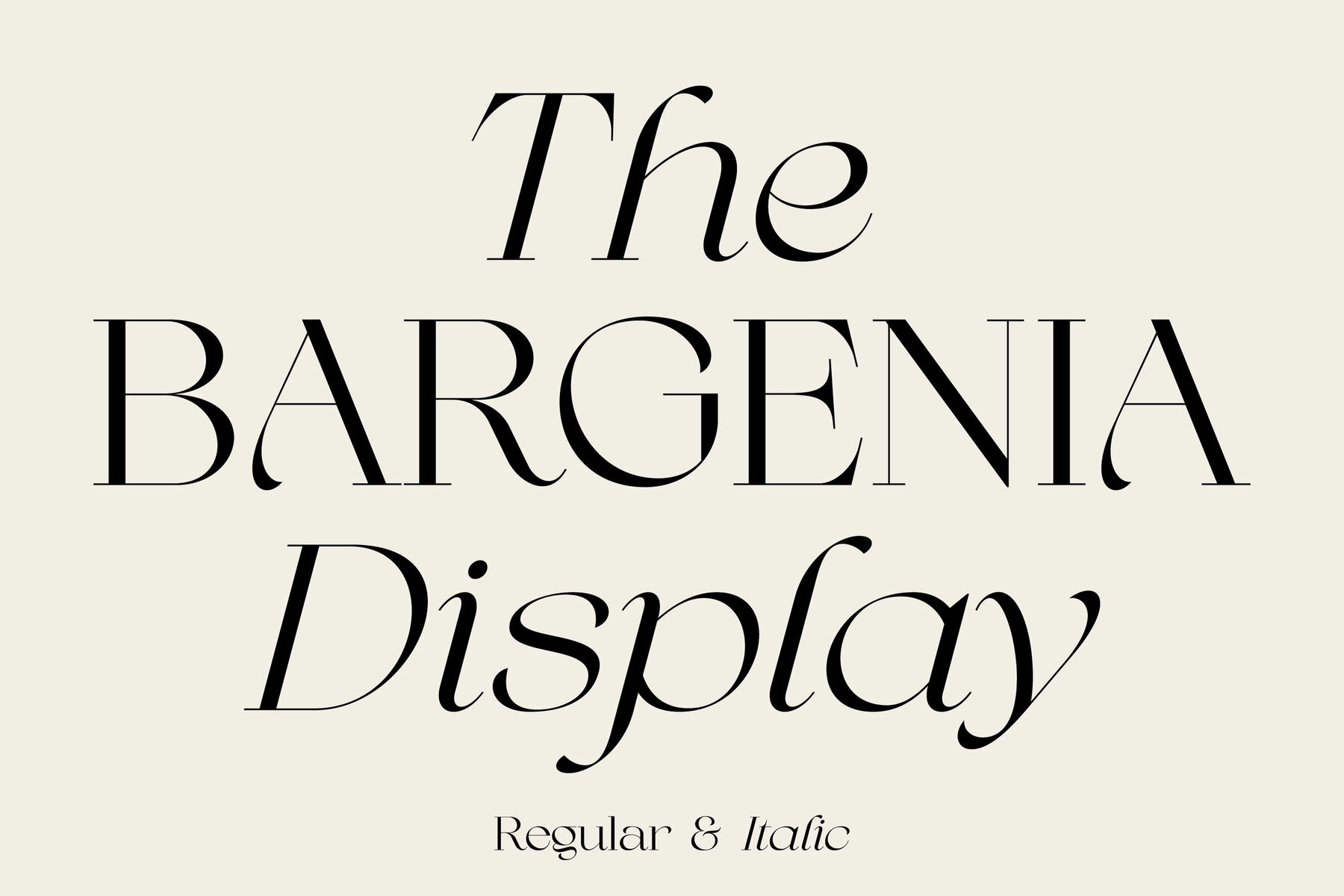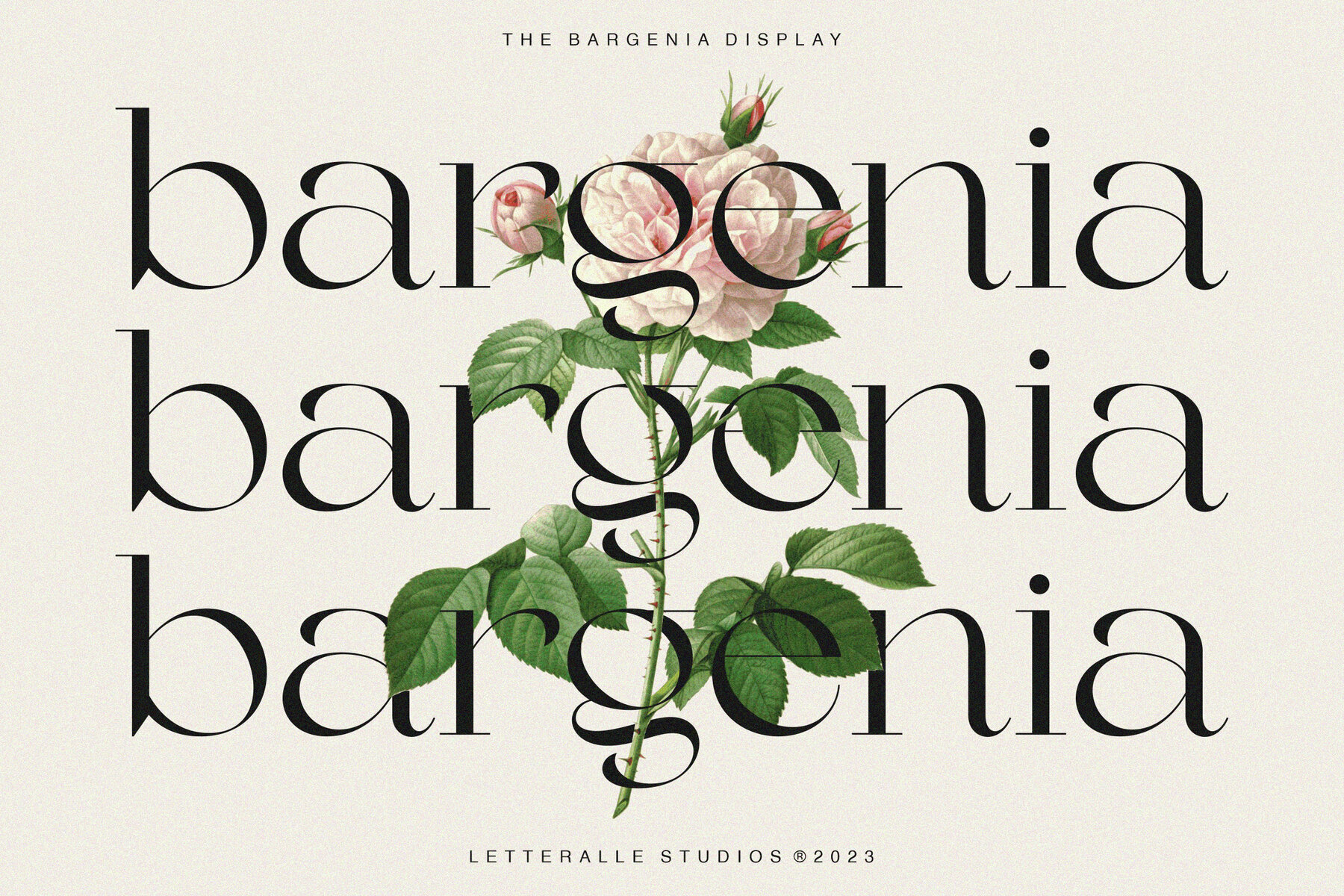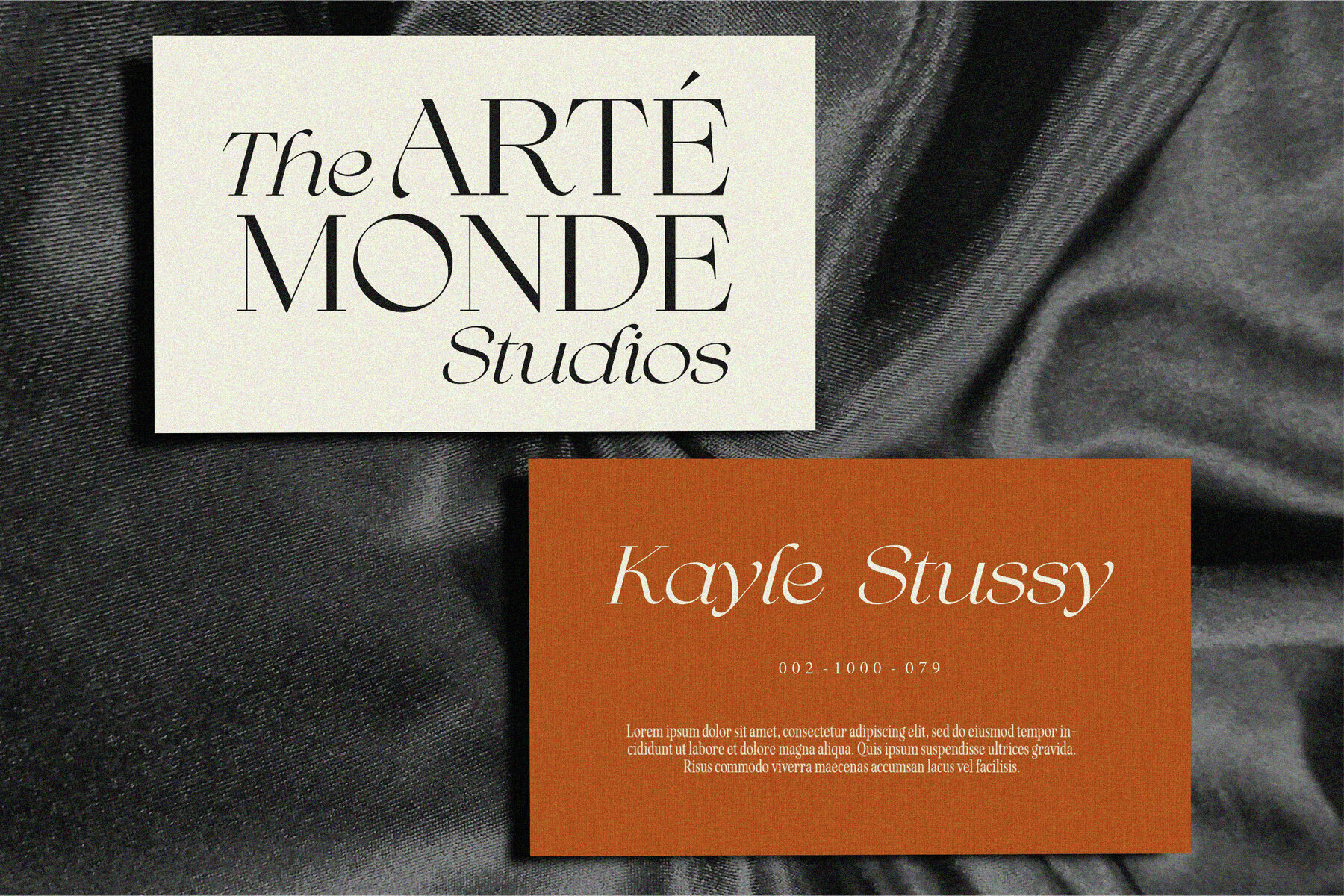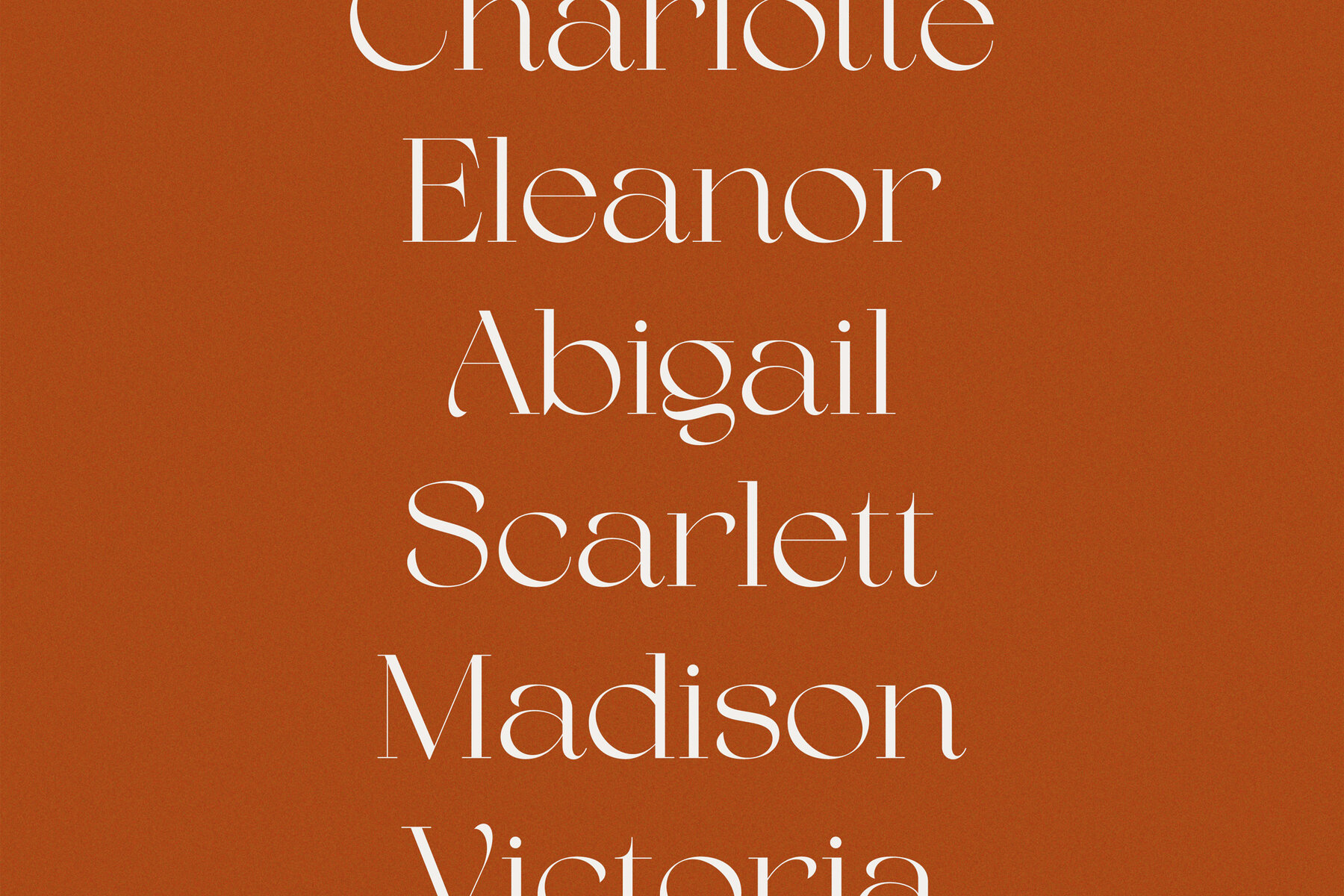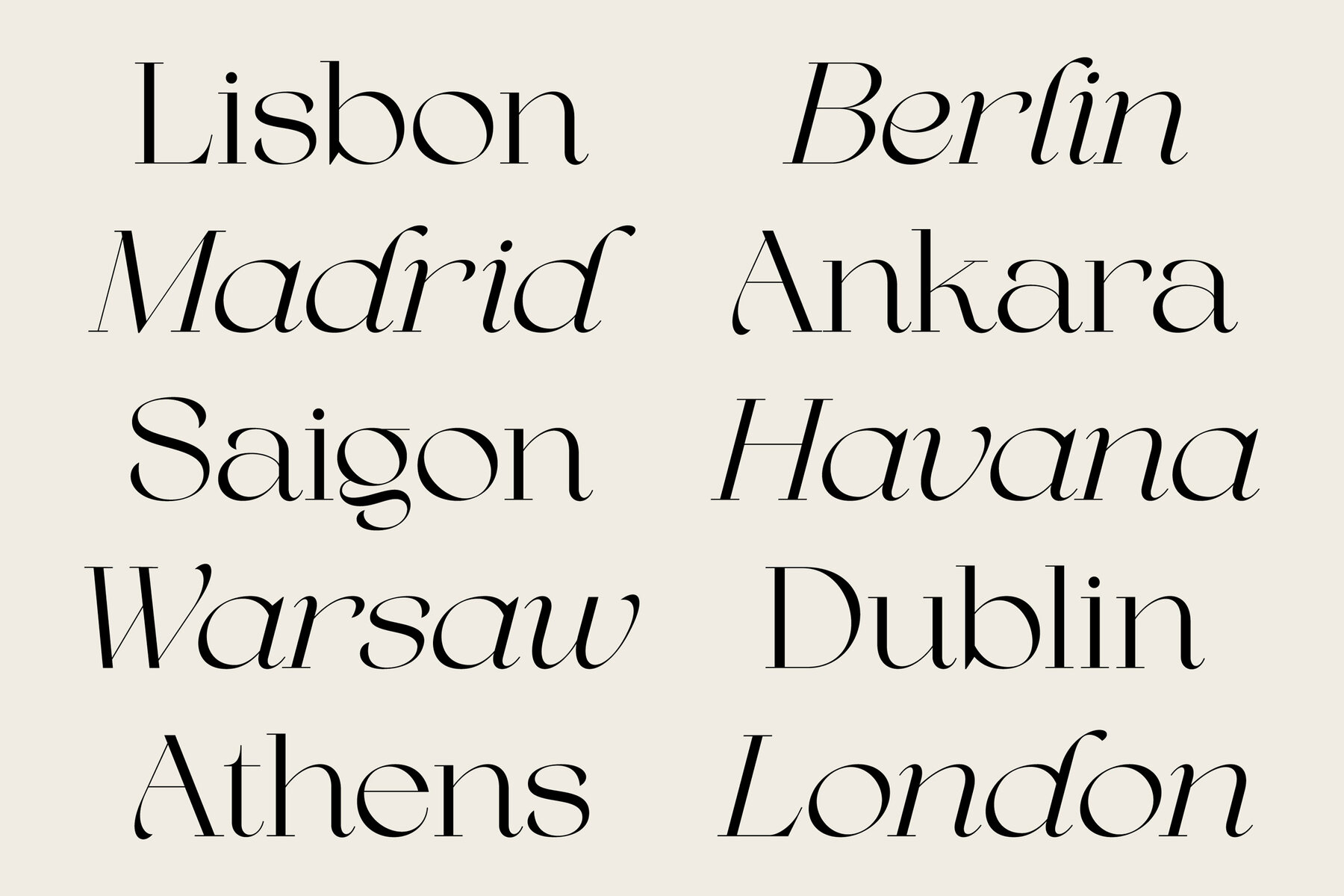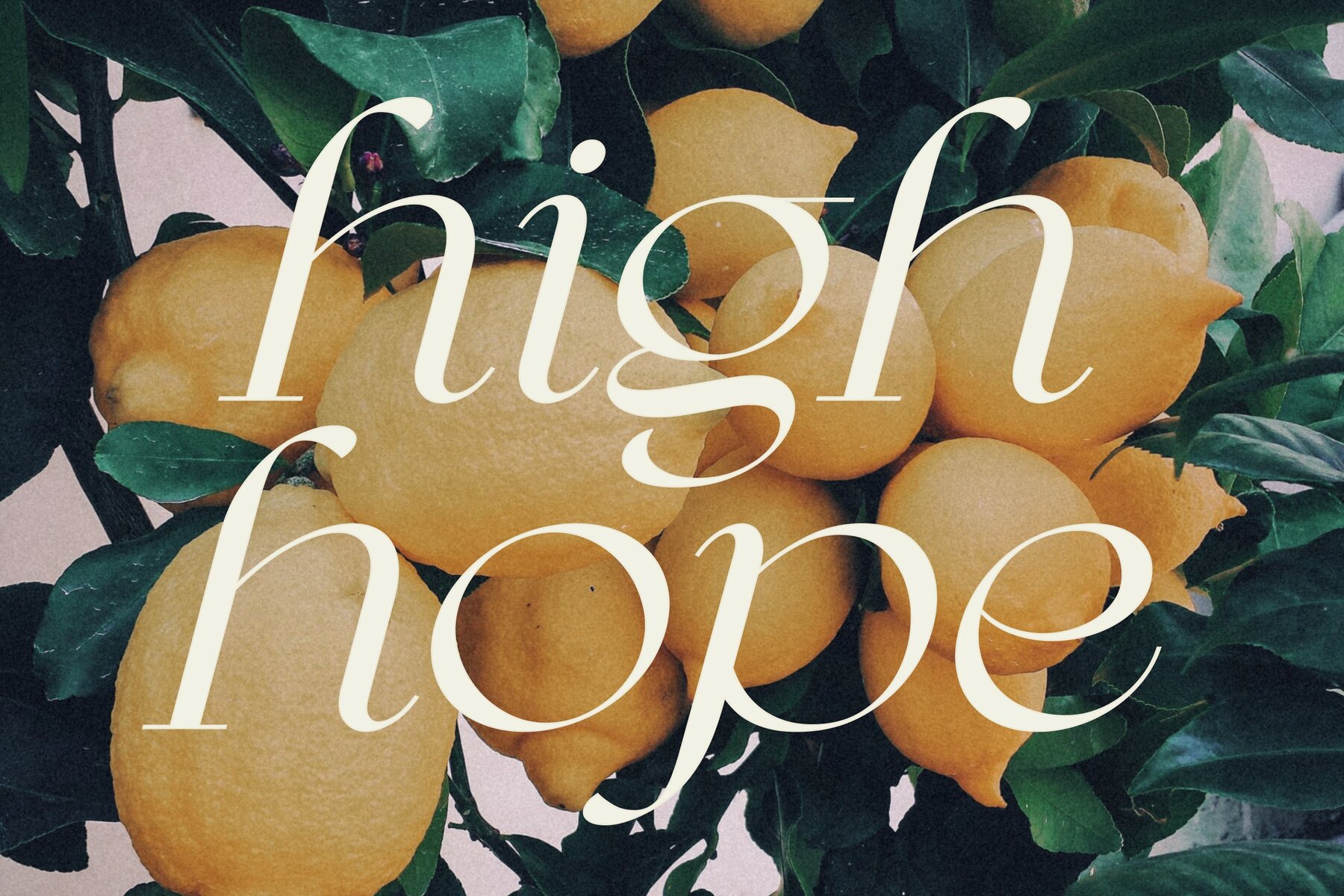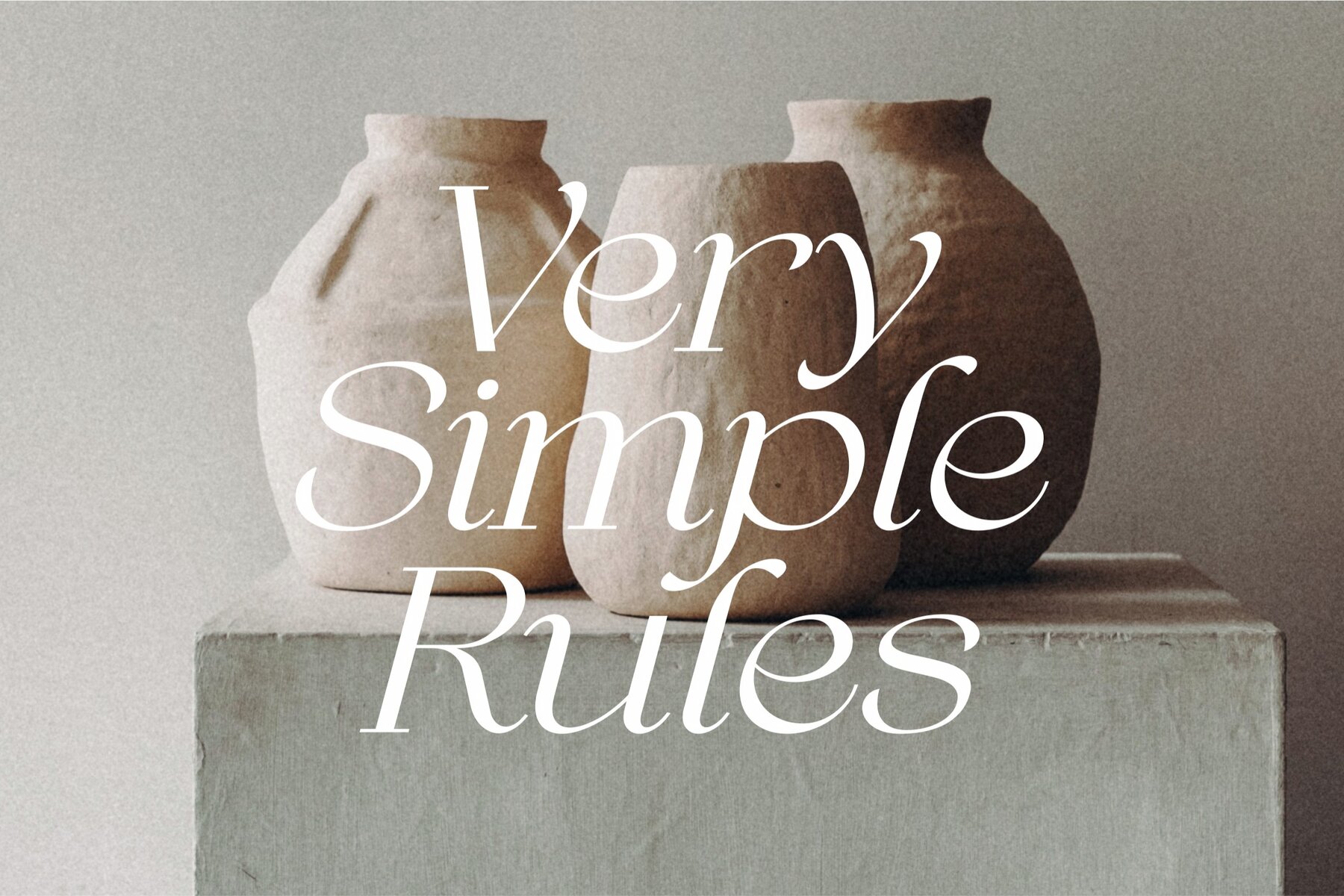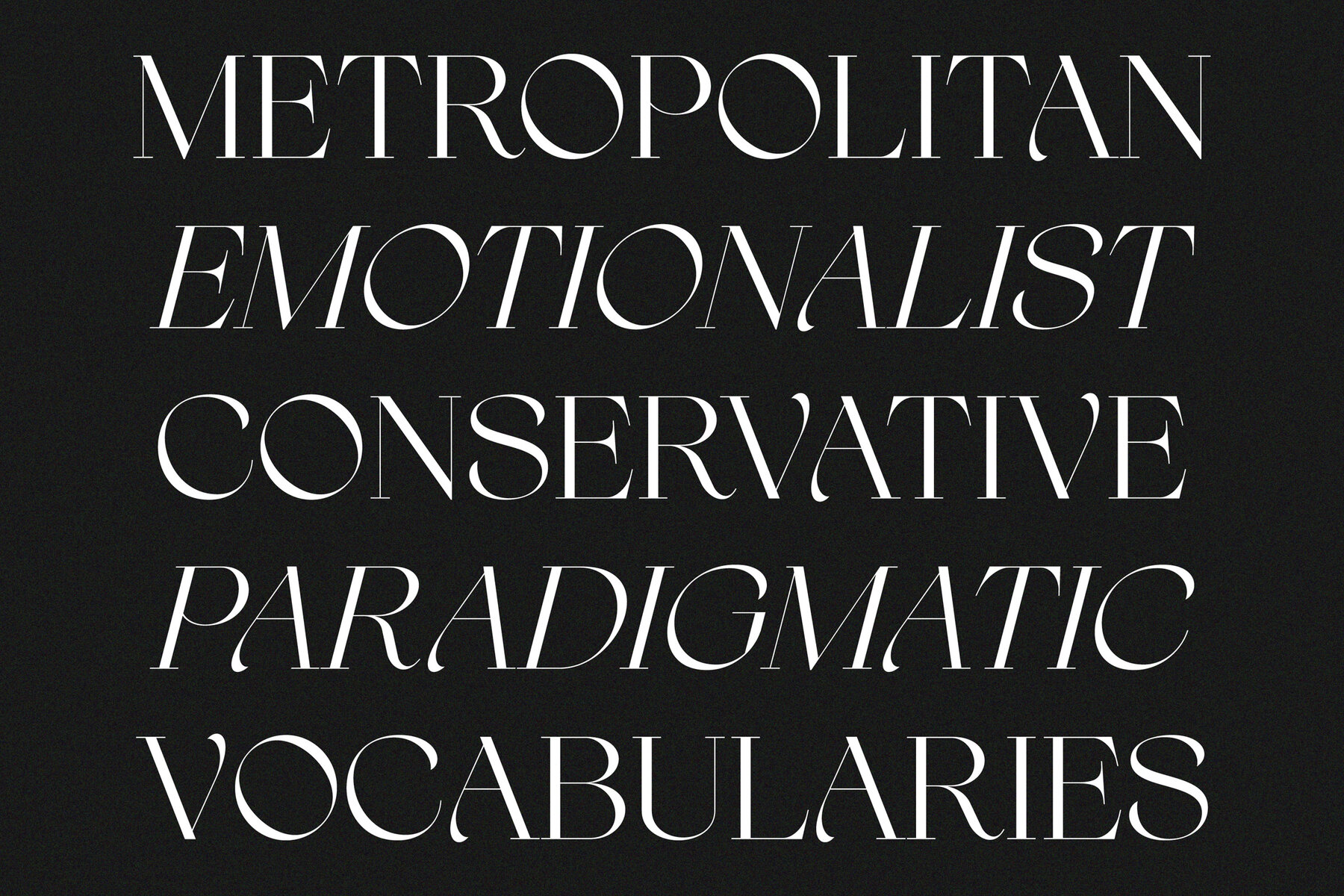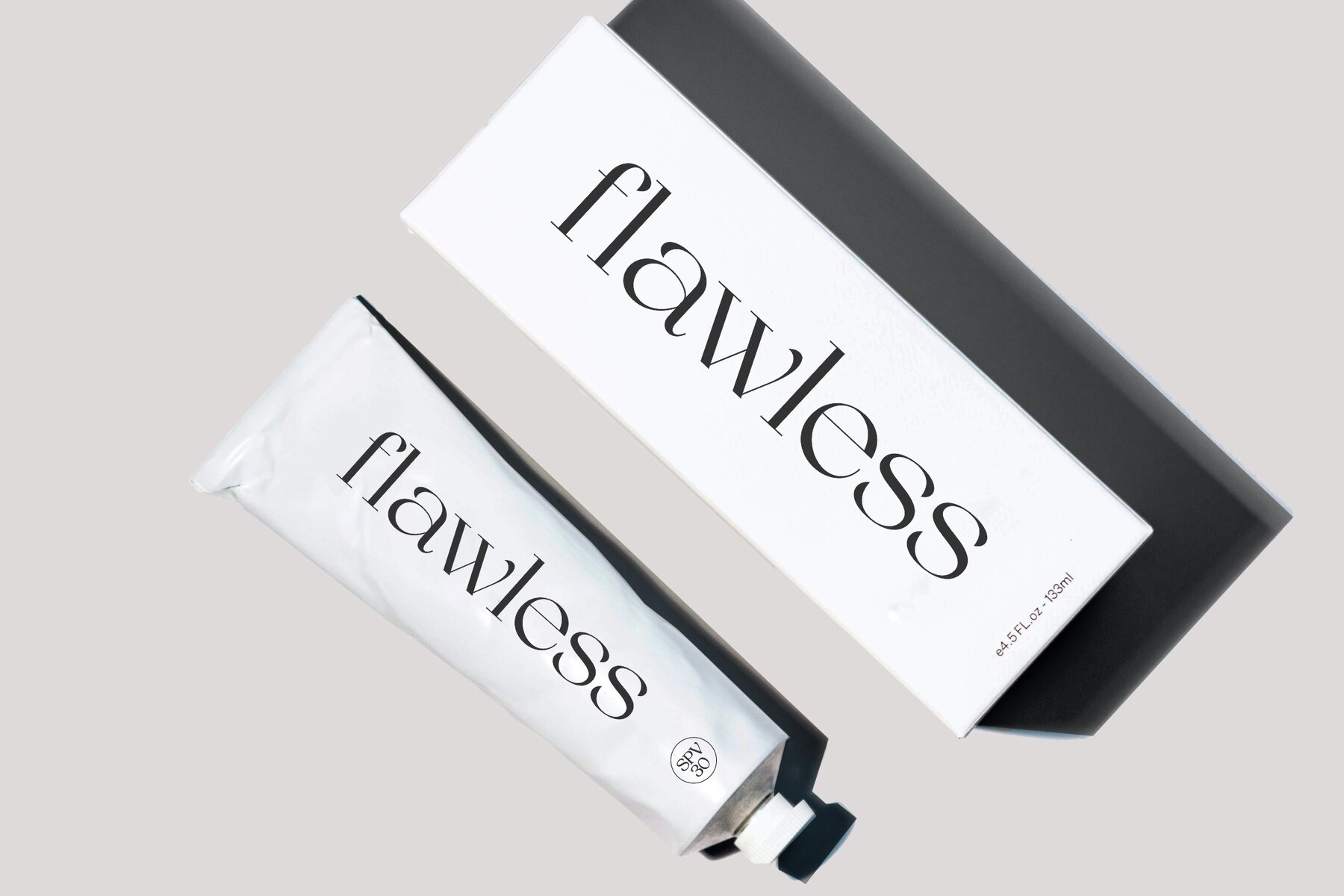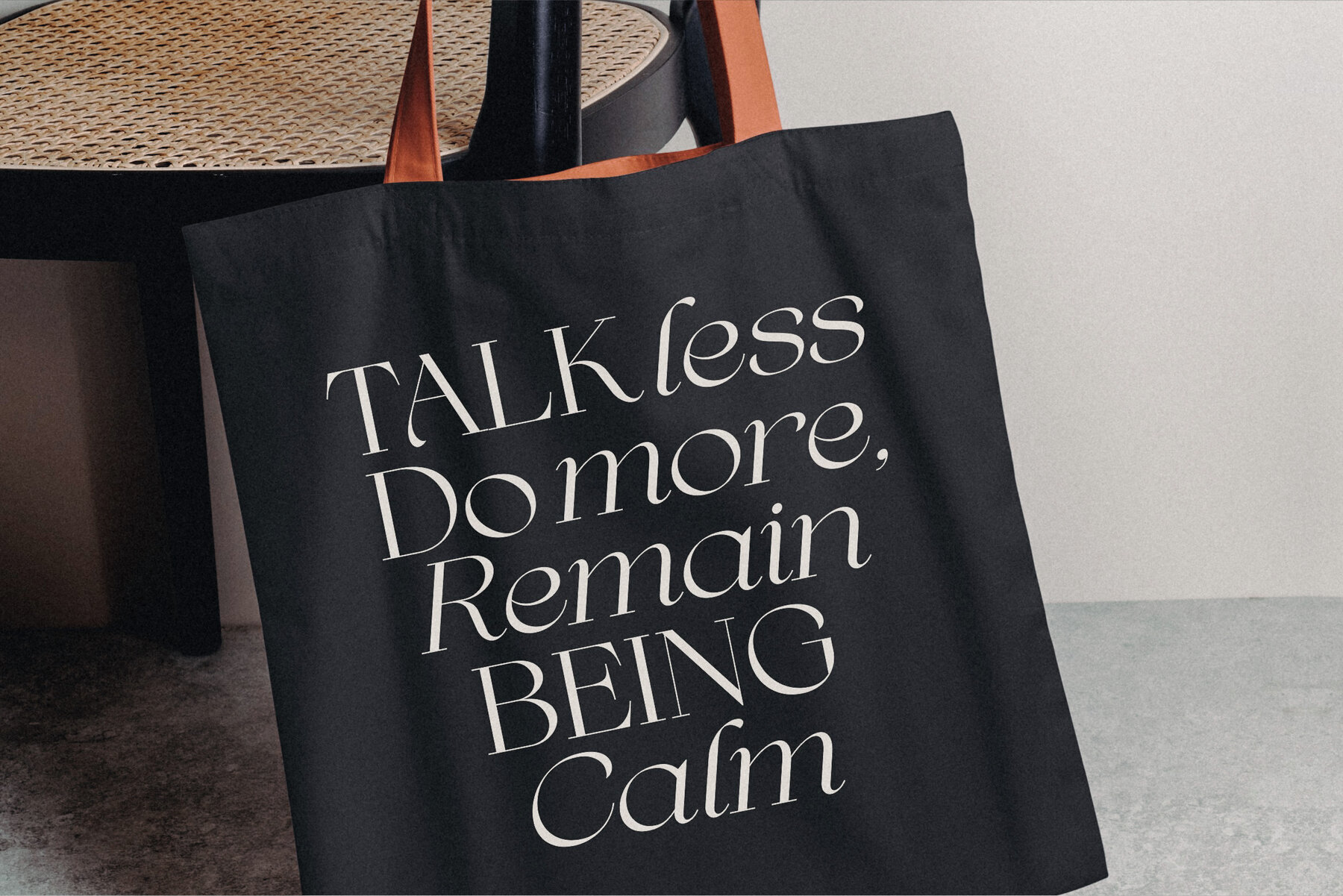
Bargenia Font
Introducing Valery, a serif display font designed with modern luxury in mind. Featuring aesthetic and unique letterforms with soft curves, this versatile and gender-neutral font is ideal for editorial projects, logo design, wedding stationary, clothing branding, product packaging, and magazine headers.